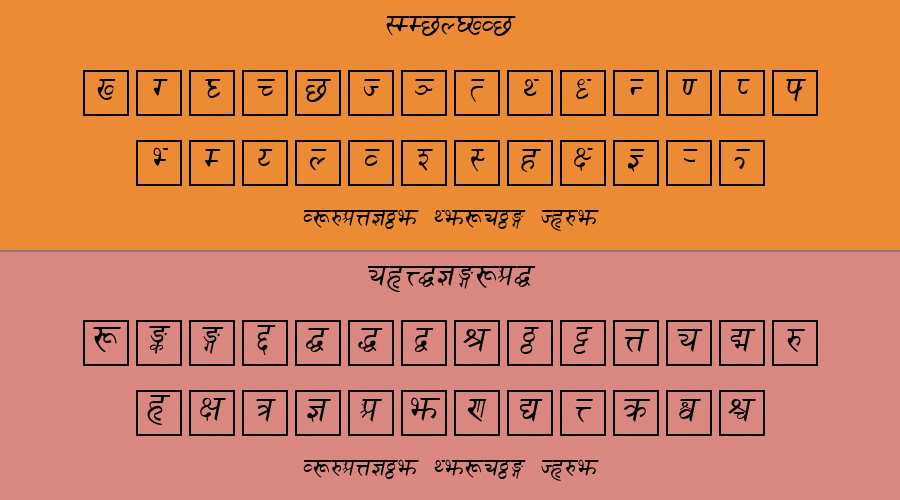
About Sanskrit Italic Font
Designed with precision, Sanskrit Italic Font merges ink traps with refinement in every character. This versatility makes it particularly effective for legal documents, where durability and creative potential directly impact communication quality. Each letterform demonstrates meticulous craftsmanship.
Technical excellence shines through elements like calligraphic strokes and automatic fractions, enhancing typographic versatility. In promotional materials settings, Sanskrit Italic Font proves its worth through superior small text clarity. The thoughtful execution of joint construction and research value ensures professional results.